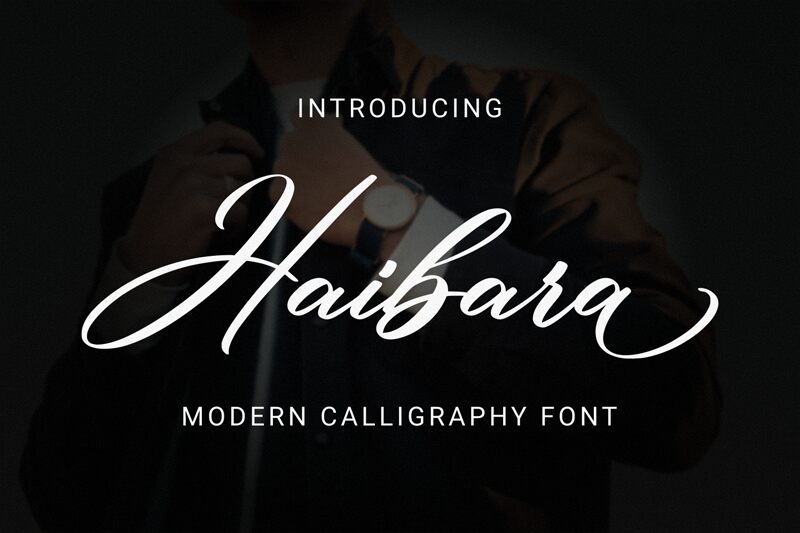
Haibara, designed by the talented Makashi, is a semi-light calligraphy font that exudes elegance and fluidity. Its sweeping curves and fine lines are reminiscent of traditional calligraphy, yet its design carries a modern flair that lends itself to a wide range of creative applications. The deliberate semi-light weight adds a touch of delicacy to the font's character without sacrificing readability.
Perfect for invitations, branding, and editorial work where a touch of sophistication is required, Haibara balances ornamental beauty with functional clarity. Its aesthetic appeal lies in its ability to convey both warmth and professionalism, making it an ideal choice for designers looking to imbue their projects with a personal yet polished touch.